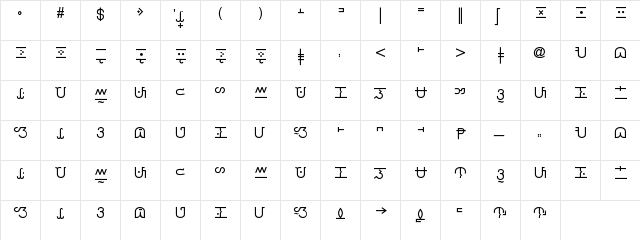
PT Baybayin Linear -Normal Regular
PT Baybayin Linear -Normal takes a measured approach to typography — its balanced proportions and neutral character make it a reliable workhorse for both digital and print work.